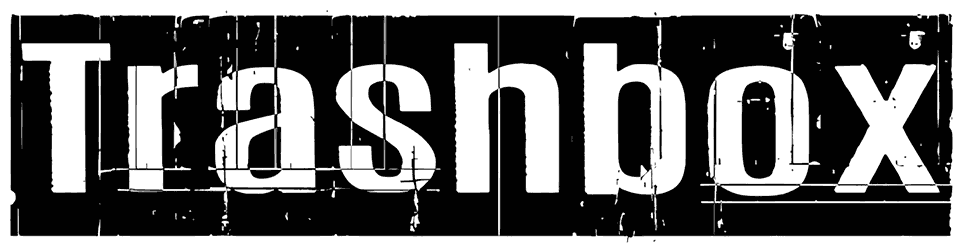
Trashbox Font
Trashbox is a destroy font with a mind-blowing design and a colorful background that leads to a sense of clutter, grunge, smudgy and jaunty, thus impressing the audience. This grunge font can revolutionize graphic content such as banners, menus, packages, and brochures, as a result, and also be your game-changer in competing with professional graphic designers.